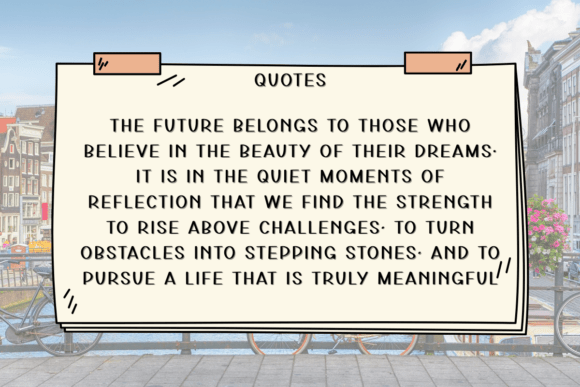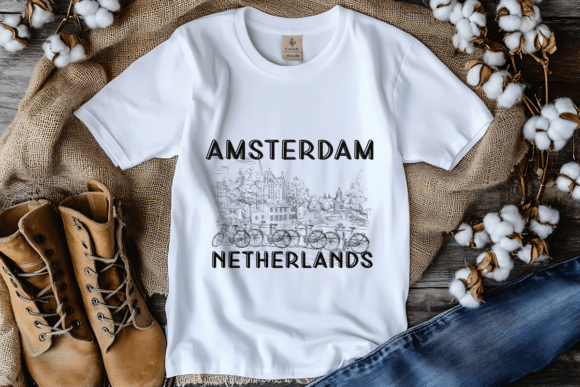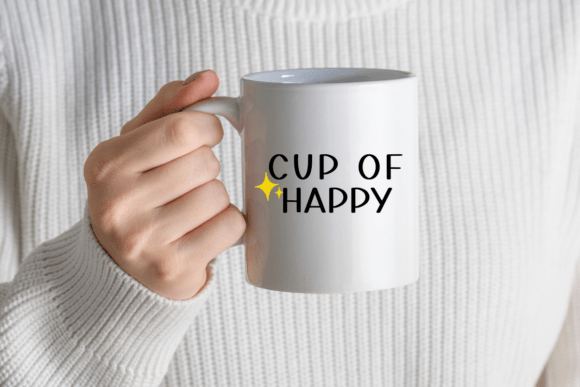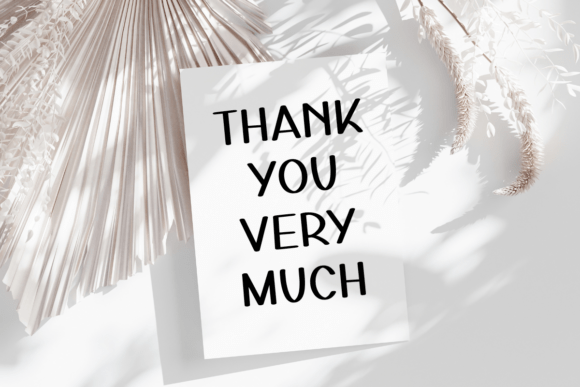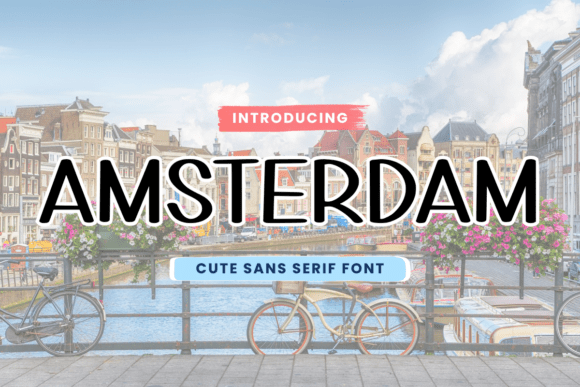
The Amsterdam Font: A Cute and Playful Addition to Your Design Toolbox
I’ll never forget the design project that led me to discover the Amsterdam font. I was working on a branding project for a new coffee shop, and I needed a font that would capture the playful, yet sophisticated vibe of their brand. As I scrolled through font after font, nothing seemed quite right – until I stumbled upon Amsterdam. Its cute aesthetic and natural vibes instantly won me over, and I knew I had found the perfect fit.
An Honest Review of Amsterdam Font
• ✨ The playful, handwriting style that adds a personal touch to any design
• ✅ The font’s versatility – it works beautifully for both digital and print projects
• 💕 The cute and charming aesthetic that’s perfect for projects that need a touch of whimsy
• 🎉 The font’s ability to bring a sense of fun and playfulness to designs
While Amsterdam font is an excellent addition to any design toolbox, it’s not without its quirks. For example:
• 🤔 Some users may find that the font can be a bit too playful for certain projects, such as corporate branding or formal events
• ⚠️ The font may not work as well in very small sizes, as some of the details can get lost
One of the standout features of Amsterdam font is its support for OpenType features and glyphs. These features allow you to customize your text and add unique touches to your designs. Some of the OpenType features you can explore include:
• Ligatures: These are special character combinations that can be used to replace certain letter pairs
• Stylistic alternates: These are alternative versions of certain characters that can be used to add variety to your text
• Glyphs: These are special characters that can be used to add decorative touches to your text
The Backstory Behind Amsterdam Font
Amsterdam font was designed with the goal of creating a playful and charming font that would bring a touch of whimsy to designs. The designer wanted to create a font that would be perfect for projects that need a bit of personality and flair. With its cute aesthetic and natural vibes, Amsterdam font is the perfect addition to any design toolbox.
Q: What type of projects is Amsterdam font best suited for?
A: Amsterdam font is perfect for projects that need a playful and charming touch, such as social media graphics, presentations, and branding materials.
Q: Is Amsterdam font available in different weights or styles?
A: Currently, Amsterdam font is available in a single weight and style. However, the designer may release additional weights or styles in the future.